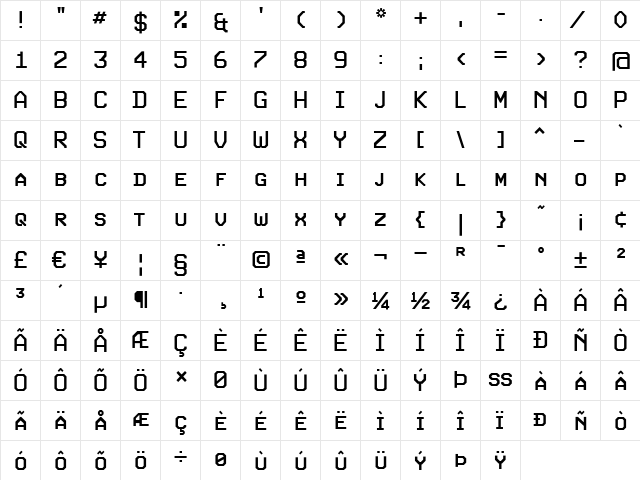
Expo SC Regular
Design Context for Expo SC Typeface
Expo SC offers clean, dependable letterforms without strong stylistic allegiance, making it a practical choice for designers who need flexibility.